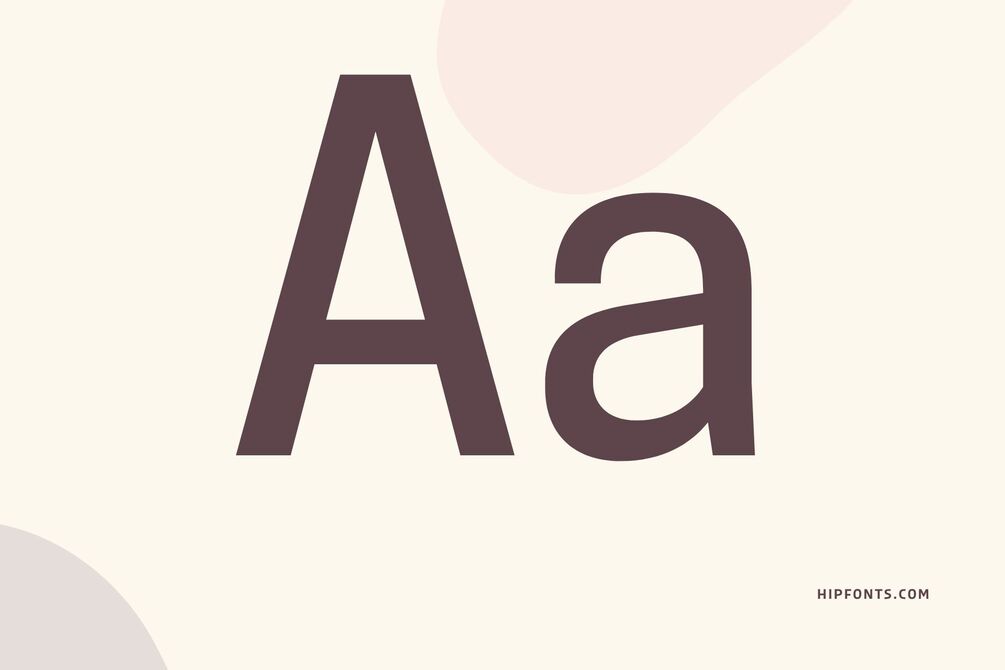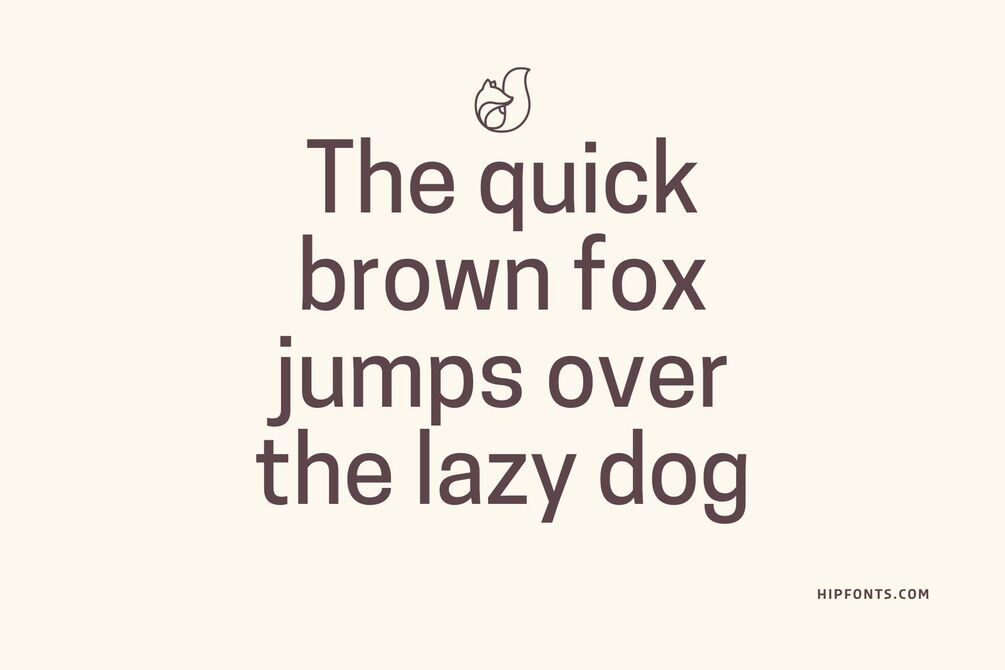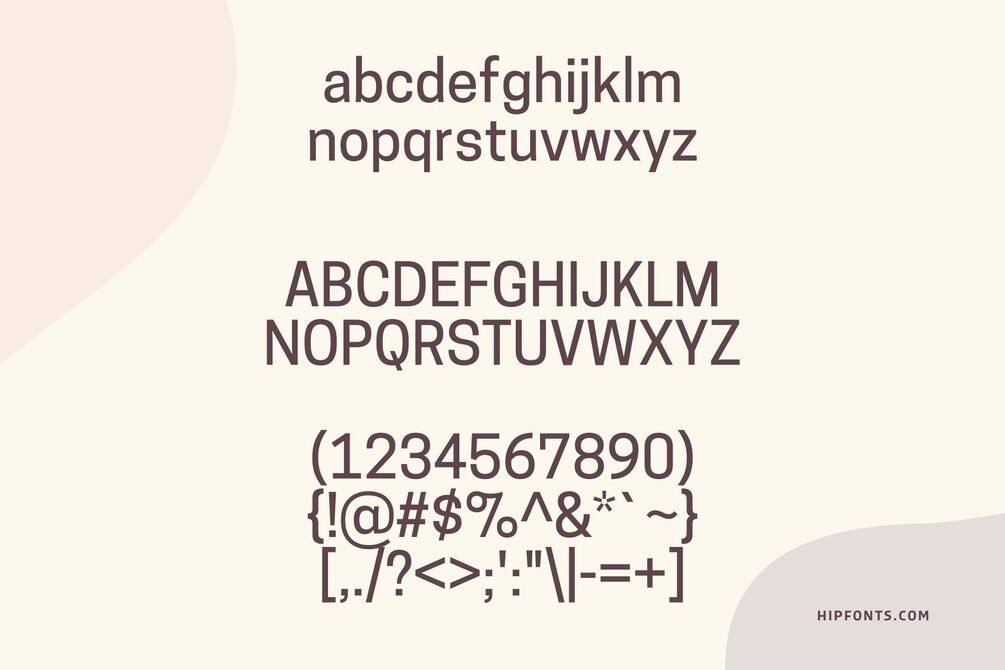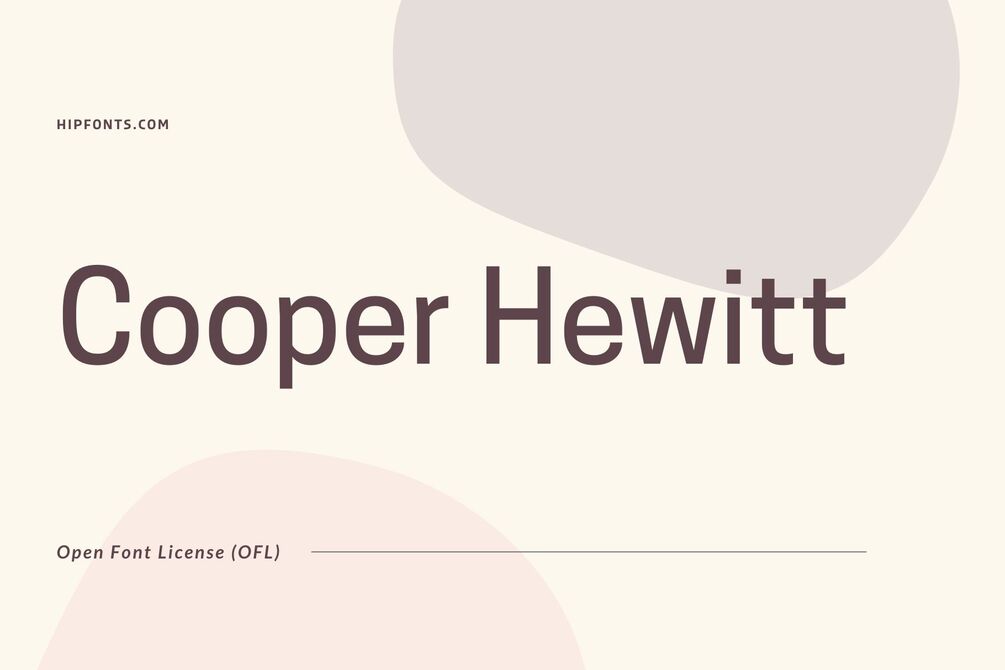
Cooper Hewitt
Cooper Hewitt is a versatile and highly legible font that blends geometric shapes with humanist influences. Inspired by the work of designer Chester Jenkins, it offers a balanced and modern typographic solution suitable for both digital and print applications. Cooper Hewitt is a reliable choice for corporate branding, user interfaces, and editorial design.
Cooper Hewitt's geometric design creates a sense of order and clarity. Its well-crafted letterforms strike a balance between precision and humanist warmth, making it approachable and visually appealing. The carefully constructed proportions ensure excellent legibility across different sizes and screens.
With a range of weights and styles, Cooper Hewitt allows for typographic flexibility and visual hierarchy. From the lighter weights that offer elegance and subtlety to the bolder weights that provide impact and emphasis, Cooper Hewitt adapts to various design needs.